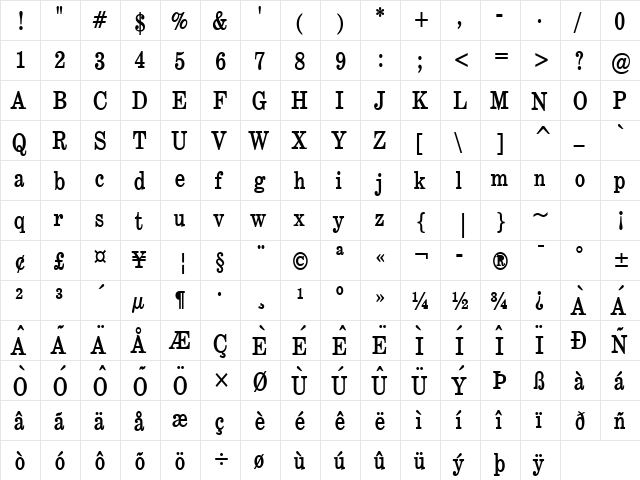
Annual Condensed Bold
Design Context for Annual Condensed Typeface
Annual Condensed offers clean, dependable letterforms without strong stylistic allegiance, making it a practical choice for designers who need flexibility. Its bold stroke weight gives it real presence on the page. The condensed width makes it efficient for tight spaces without sacrificing legibility.